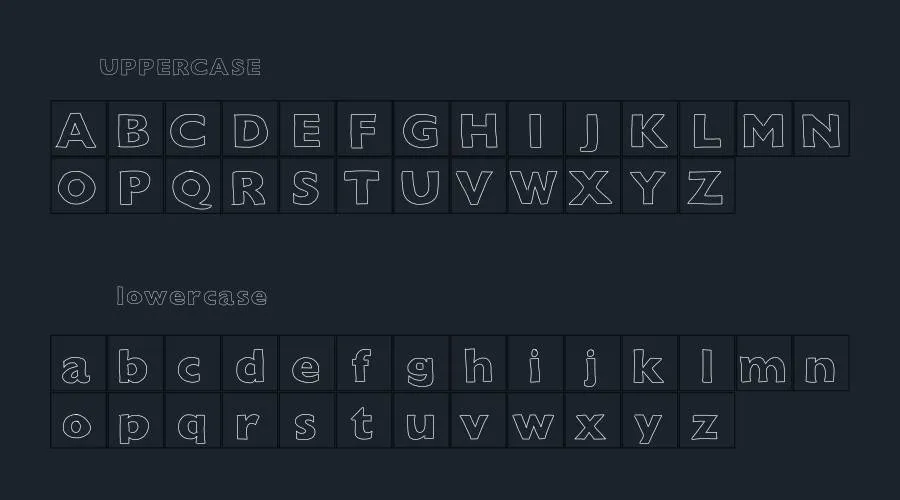
About Outline Font
Outline Font is designed by Jimmy Kalman it is a fancy text style. The typeface does have a clean appearance that makes it perfect for projects that need a unique design. You can download this font in OTF and TTF file formats.
It is a fantastic option for projects that require an original and creative design. The typeface can use in multiple projects because of these alternate characters, which also enable the users to design unique font styles.
The font contains a variety of traits and attributes that will look amazing in your creation. Consider other similar fonts if you are searching for a more readable typeface that looks good together.